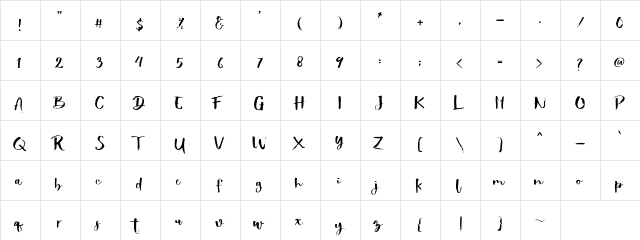
Showety Brush Regular
Design Context for Showety Brush Typeface
Showety Brush flows with the natural rhythm of handwritten lettering, making it ideal for designs that call for warmth and personal expression.
Font Pairing: Combine Showety Brush with a simple geometric sans for maximum contrast — the tension between flowing curves and clean structure is a classic typographic pairing.
Pro Tip: Use Showety Brush for short runs of text — names, titles, or taglines. Extended body copy in script faces tires the eye quickly.